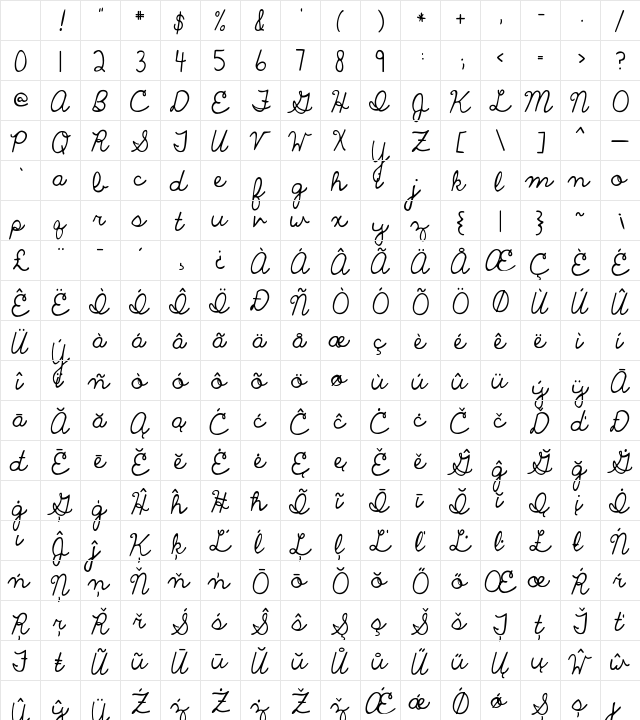
Complete The Only Exception Regular glyph index. Displaying only characters natively supported by The Only Exception Regular font.
The Only Exception is a composed and adaptable typeface that performs quietly and consistently across a wide range of design contexts.